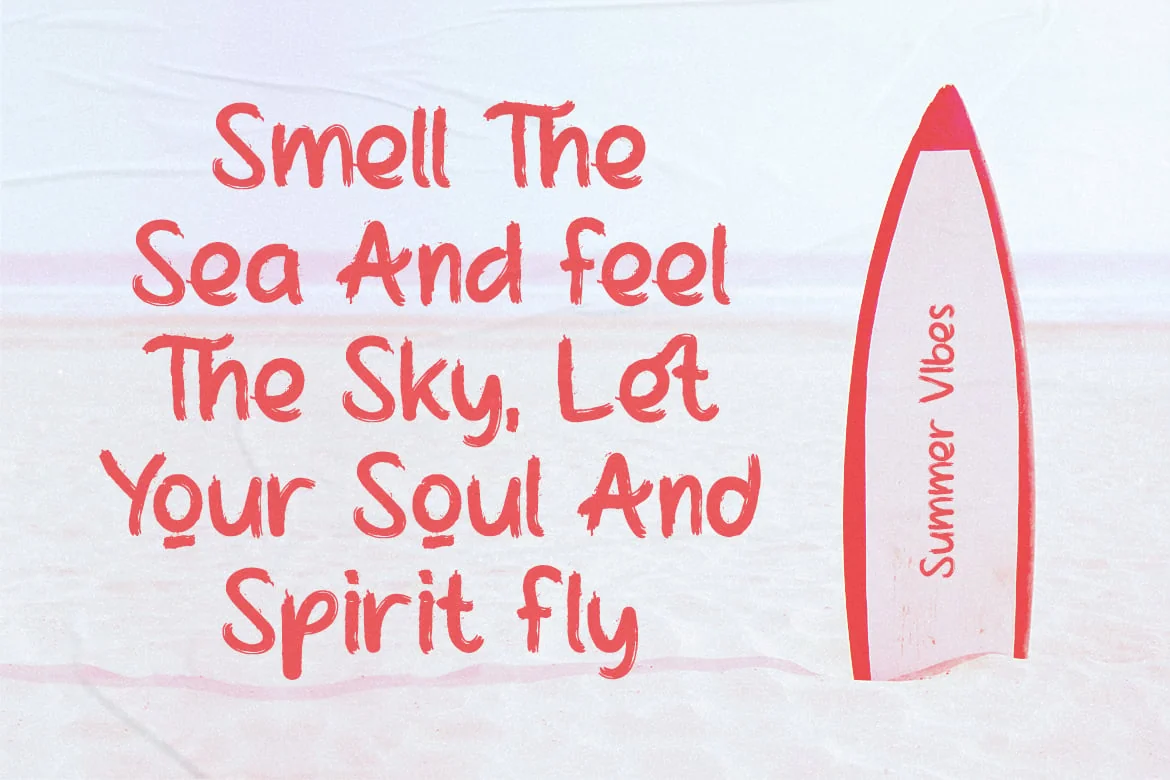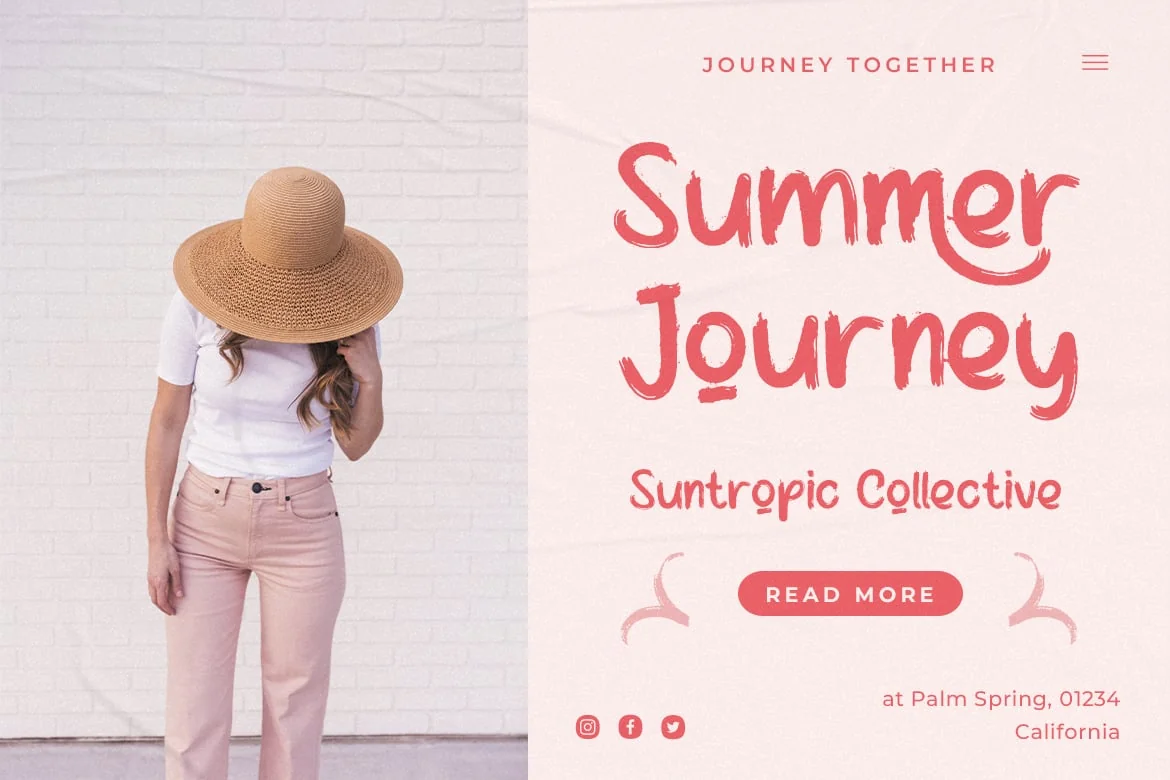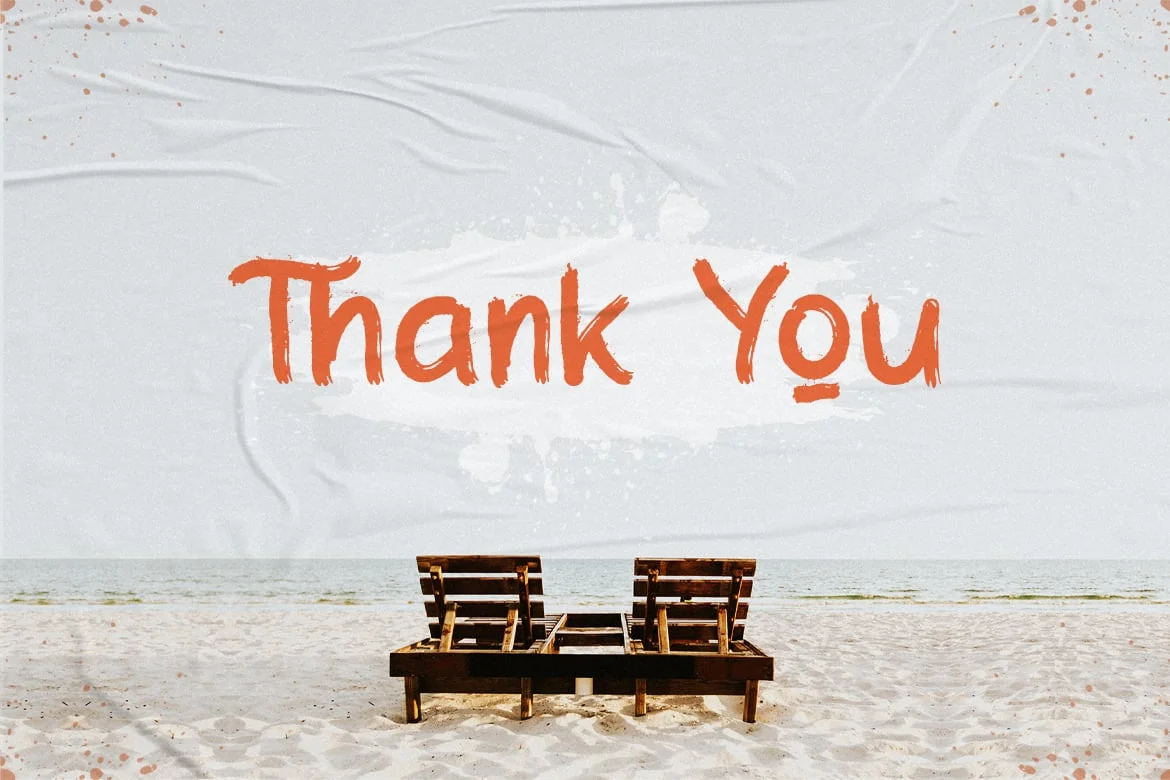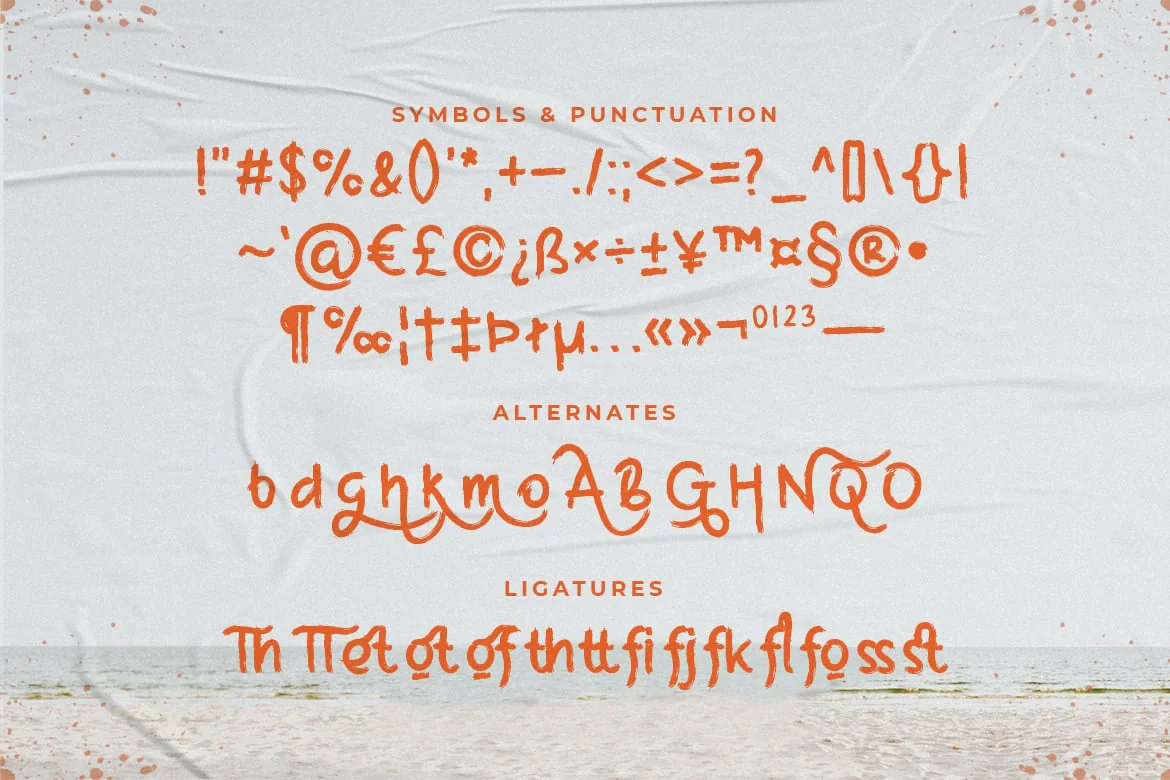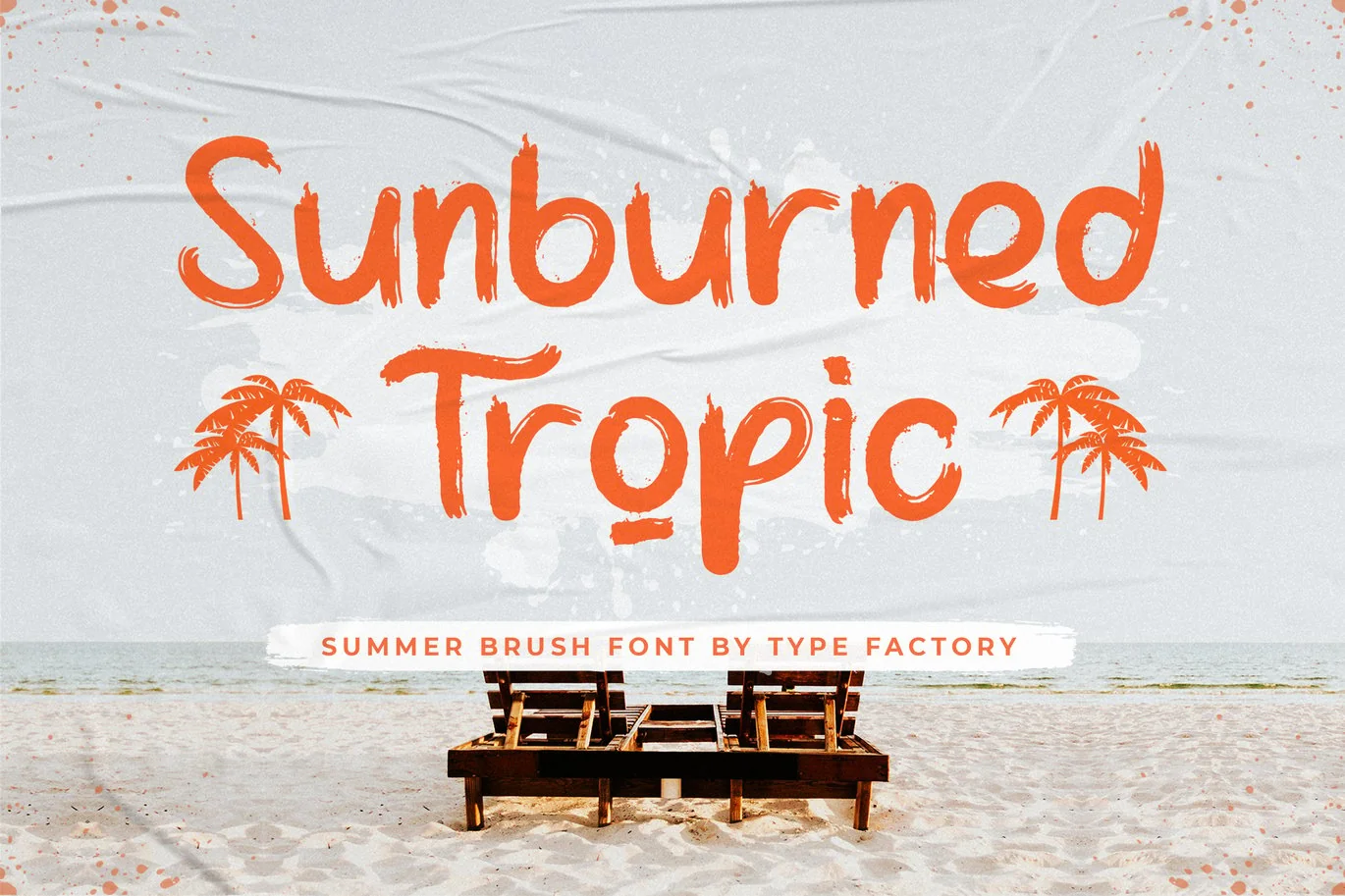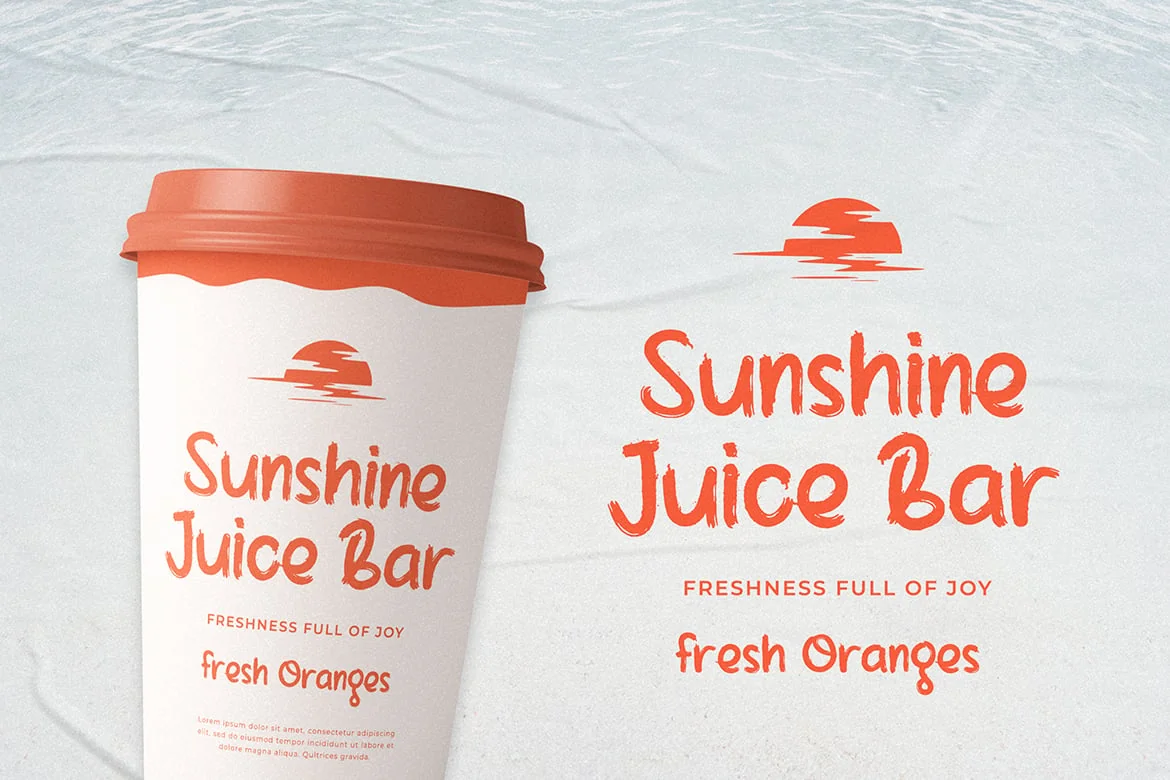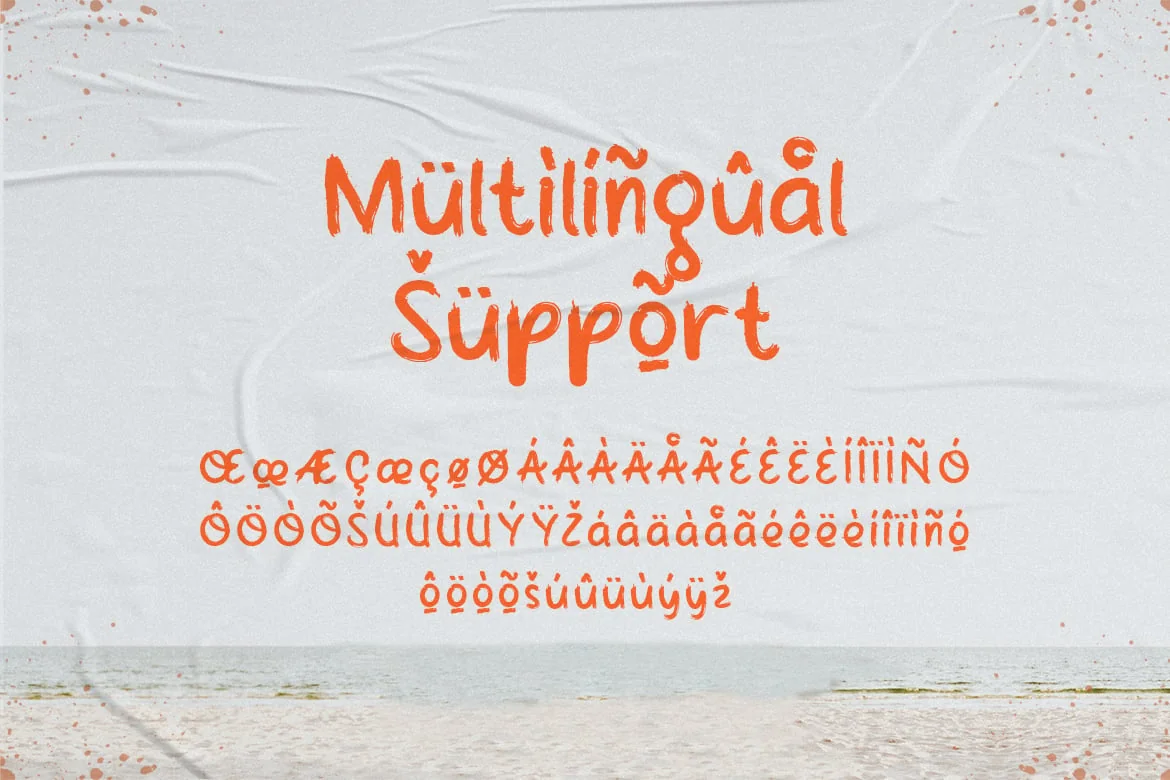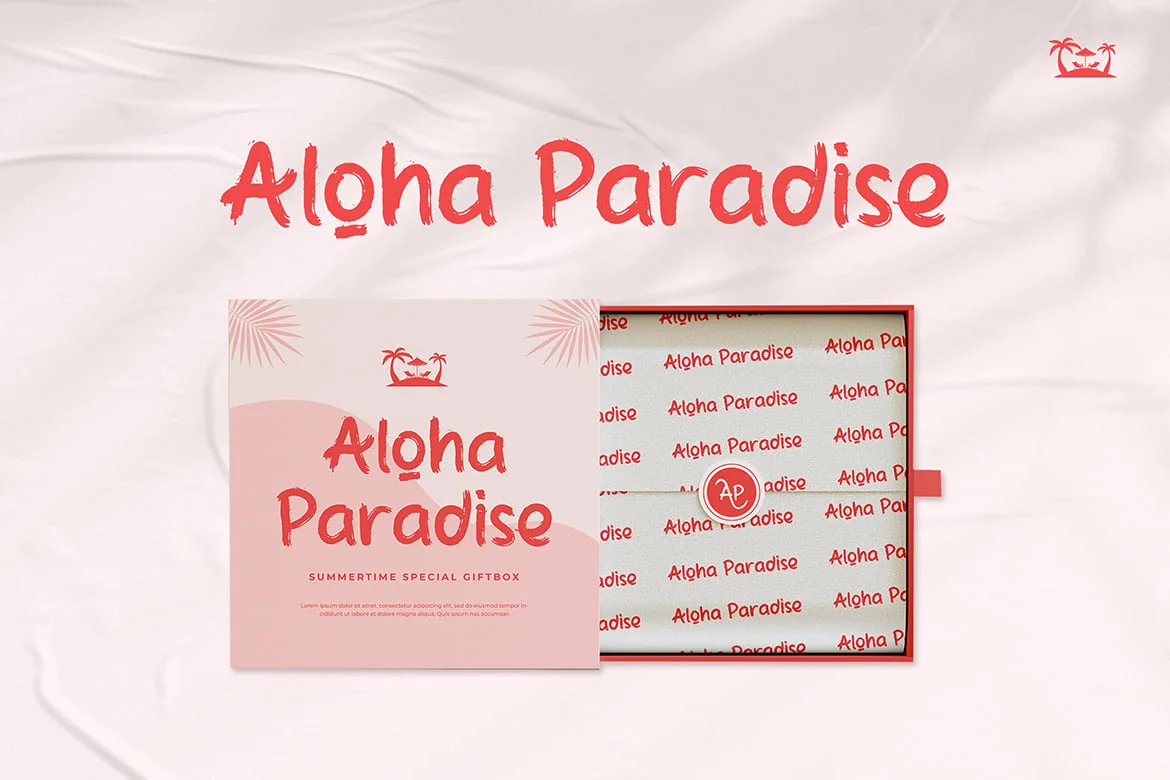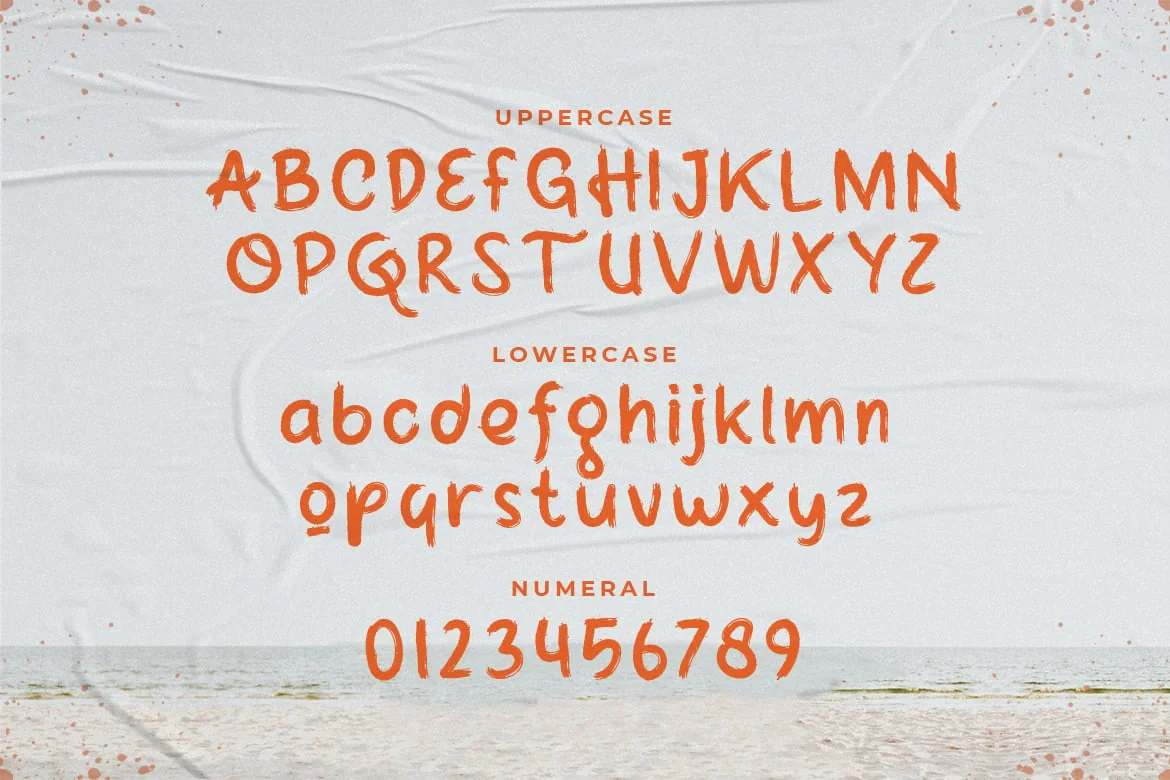
Sunburned Tropic – Summer Brush Font
Sunburned Tropic is a tropical and dreamy brush font that radiates summer and positivity.
Use it to add a relaxed vibe to any design project.